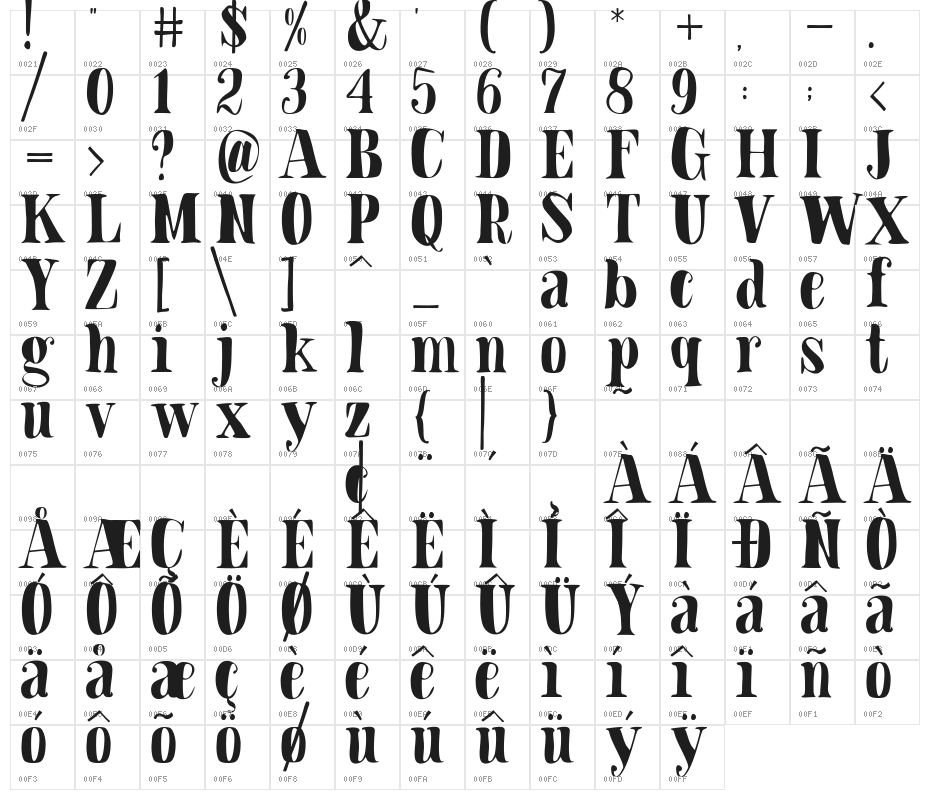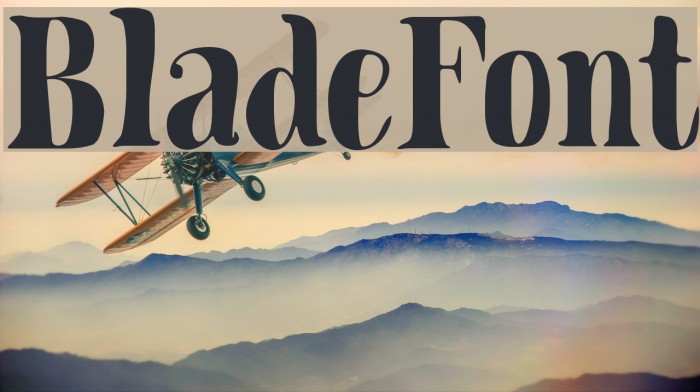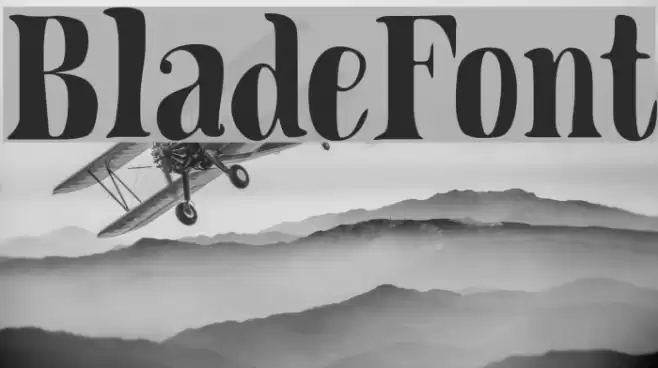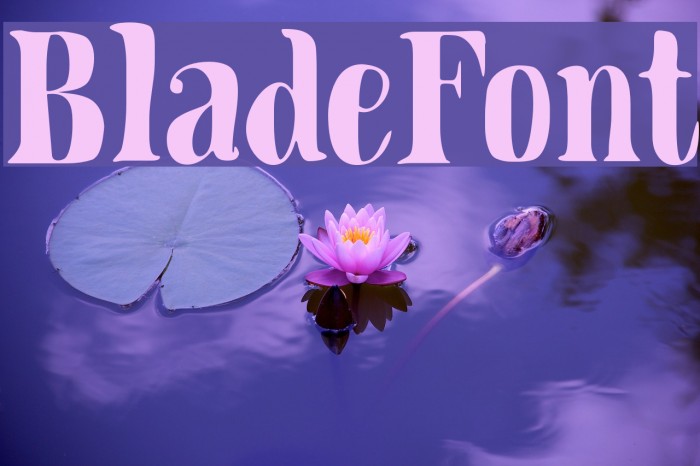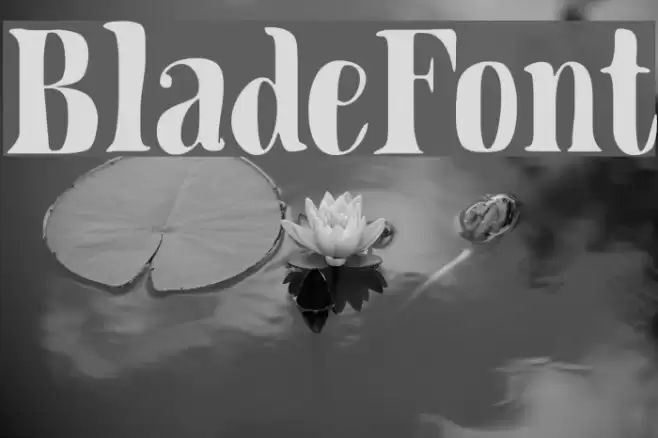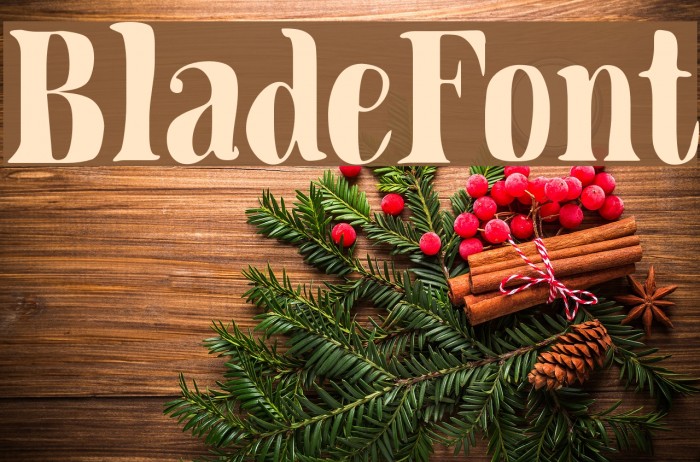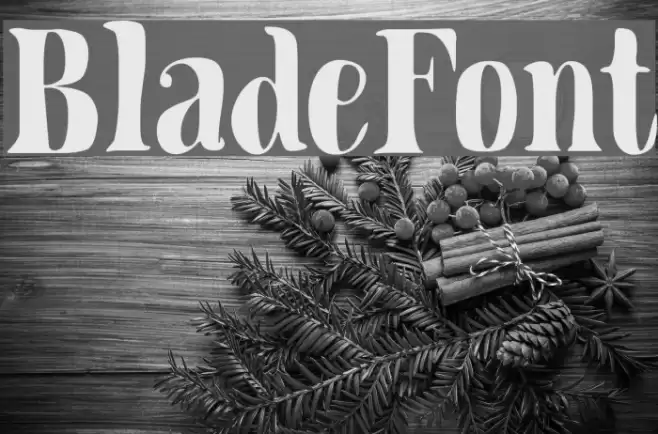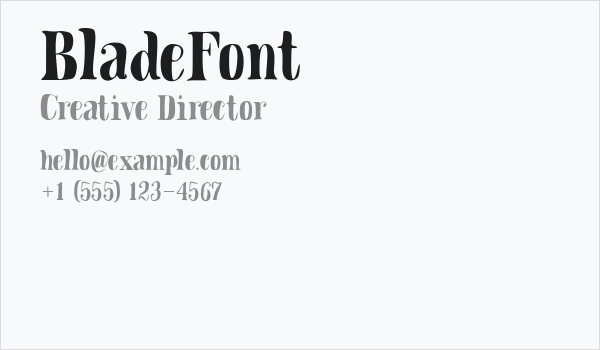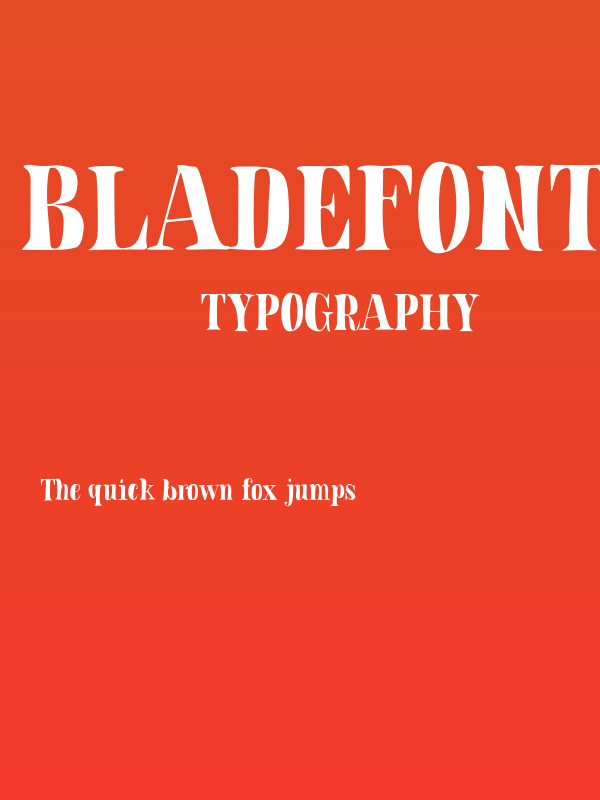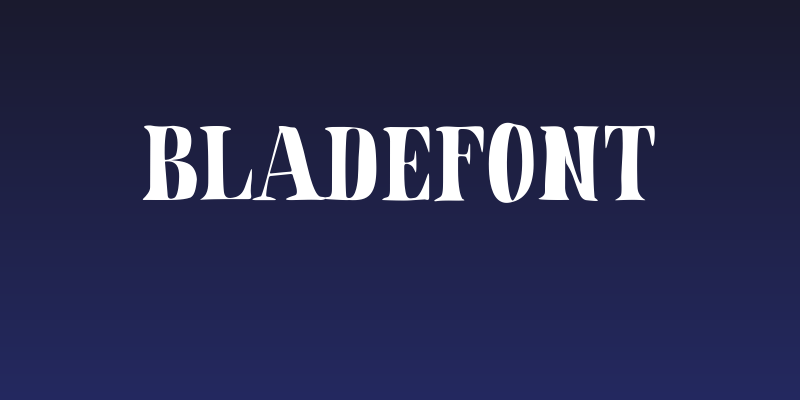
BladeFont Font
BladeFont Description
This font features a bold and striking design with a high contrast between thick and thin strokes, giving it a dramatic and eye-catching appearance. The serifs are pronounced and sharp, adding a touch of elegance and sophistication. The uppercase letters exhibit a strong presence, while the lowercase characters maintain a consistent style with slightly rounded edges. The numerals are bold and easily readable, complementing the overall aesthetic. Special characters are designed with the same attention to detail, ensuring uniformity across the font. This font is ideal for making a statement in any design project.
| Proposed Projects | Ideal for headlines, posters, branding, and editorial design where a strong visual impact is desired. |